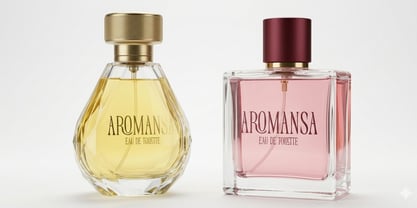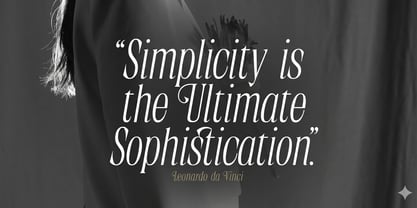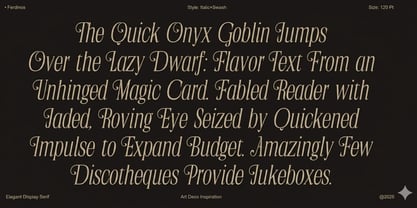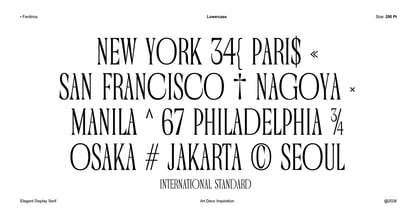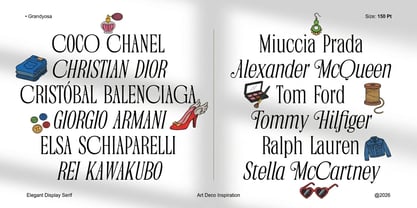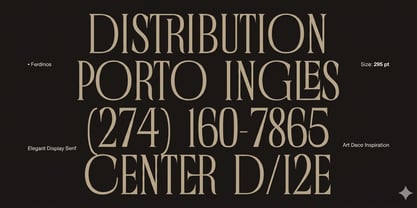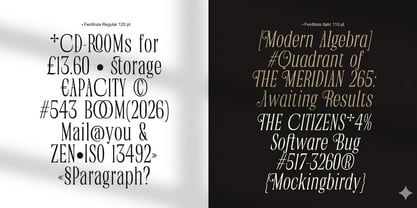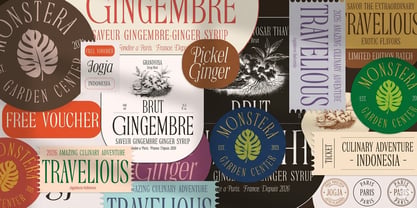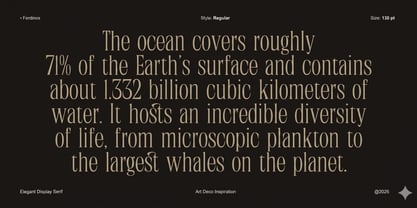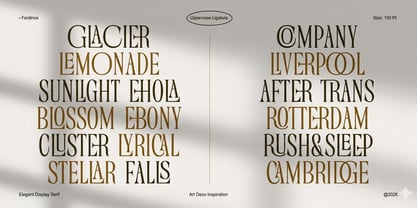
Ferdinos
by Dora Typefoundry
The Ferdinos Font Family was designed by Zahratul Laila and published by Dora Typefoundry. Ferdinos contains 2 styles and family package options. More about this family
Ferdinos is an elegant display serif with a strong Art Deco touch. The letterforms are tall, slender, and have a subtle bold-thin contrast, creating a luxurious, artistic, and classy impression. The curved details of each character create a classic yet modern feel, making it ideal for headlines, fashion editorials, premium branding, exclusive posters, and other visual designs with a luxurious and sophisticated feel. This font includes two fonts: one upright and one italic, adding a dynamic visual rhythm.
Overall, this font conveys a timeless, contemporary vintage aesthetic with a strong character. The combination of dramatic letter proportions and generous spacing creates bold text while remaining comfortable to read at large sizes. This font is ideal for design projects seeking to emphasize an artistic, premium, feminine, and aesthetically pleasing feel.